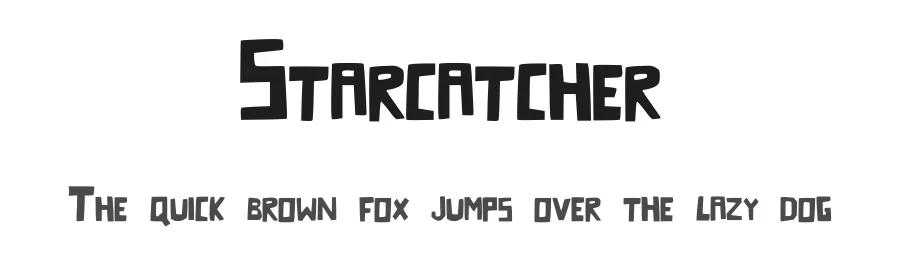
About Cardboard-Cutout Font
A cartoonish geometric font with straight lines and a rough look.
A fun little font made using nothing but rectangles and boolean operations.